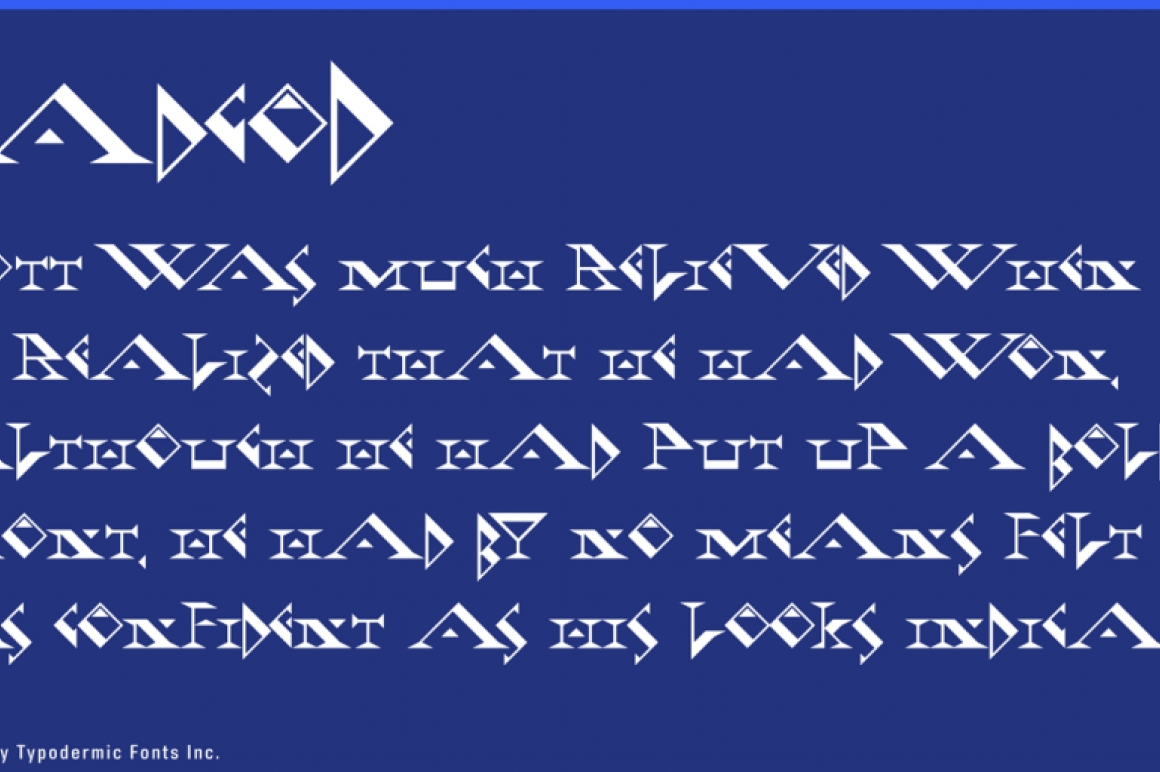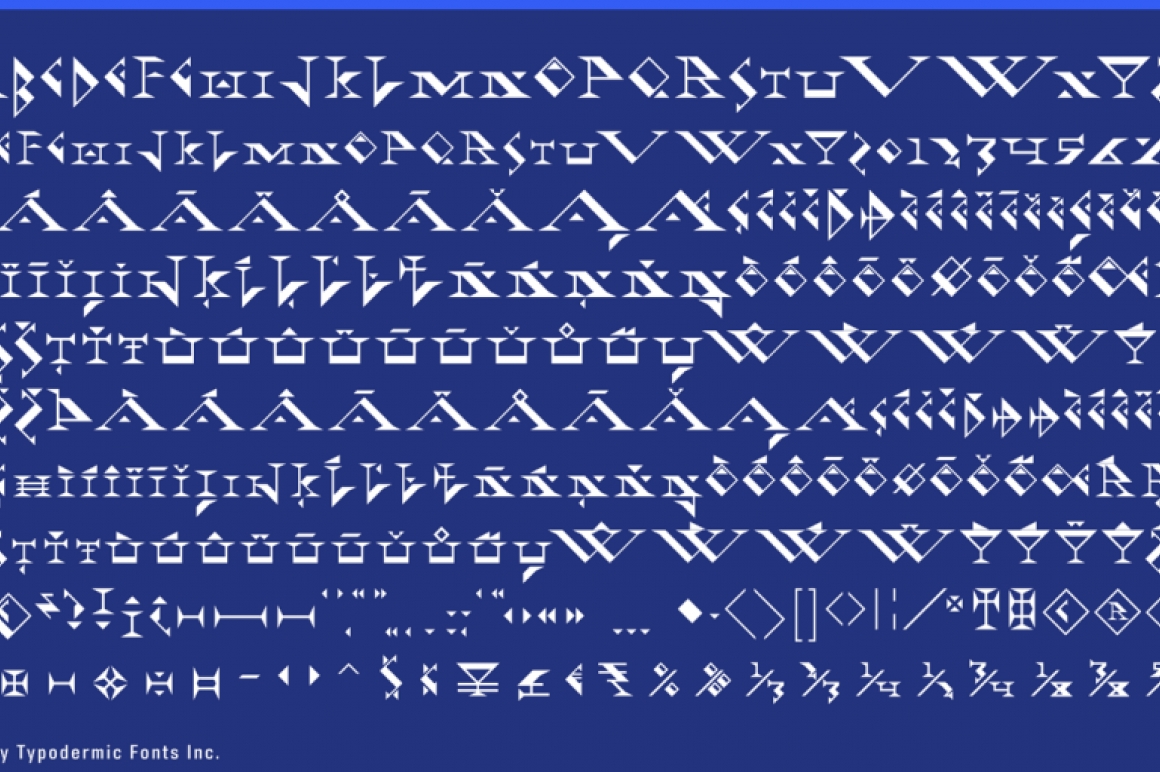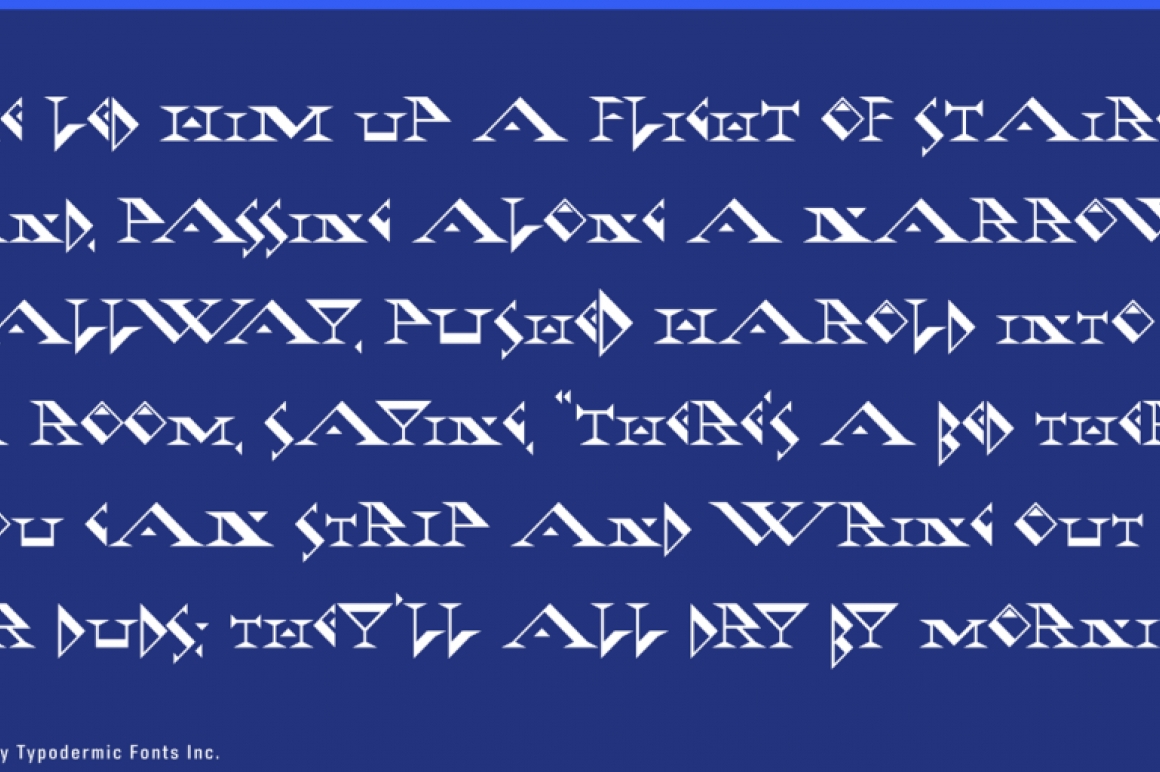
Fadgod
Fadgod is a triangular, lounge font for people who like fonts with a point. Oh, man. Fadgod has all new spacing and kerning. More languages are supported. Fractions and numeric ordinals have been added. Vertical spacing has been optimized for better web performance.